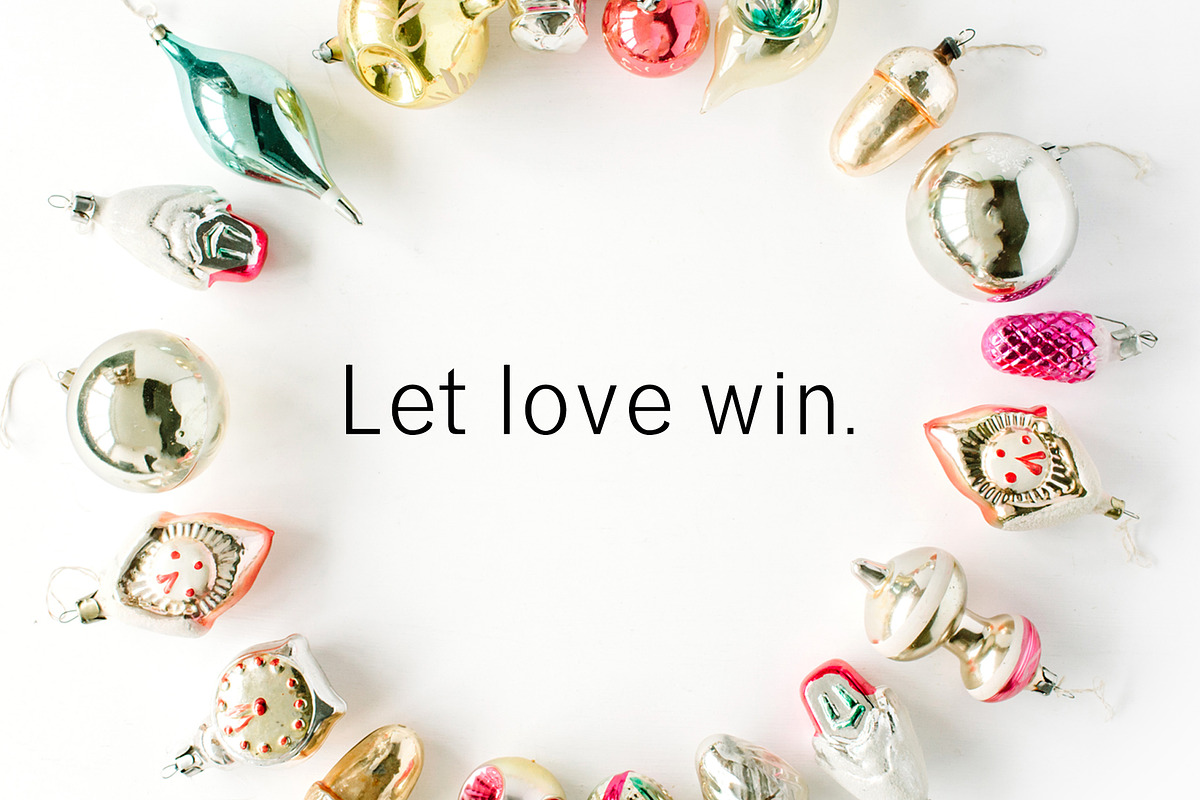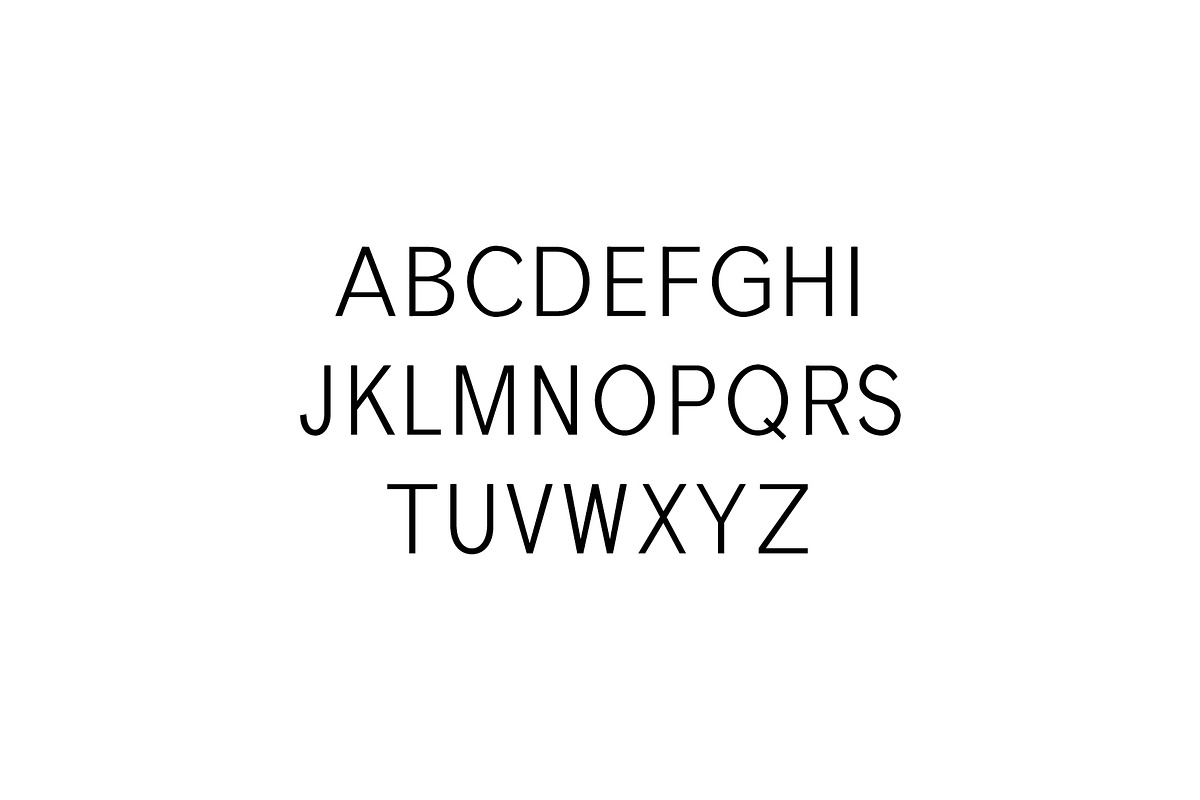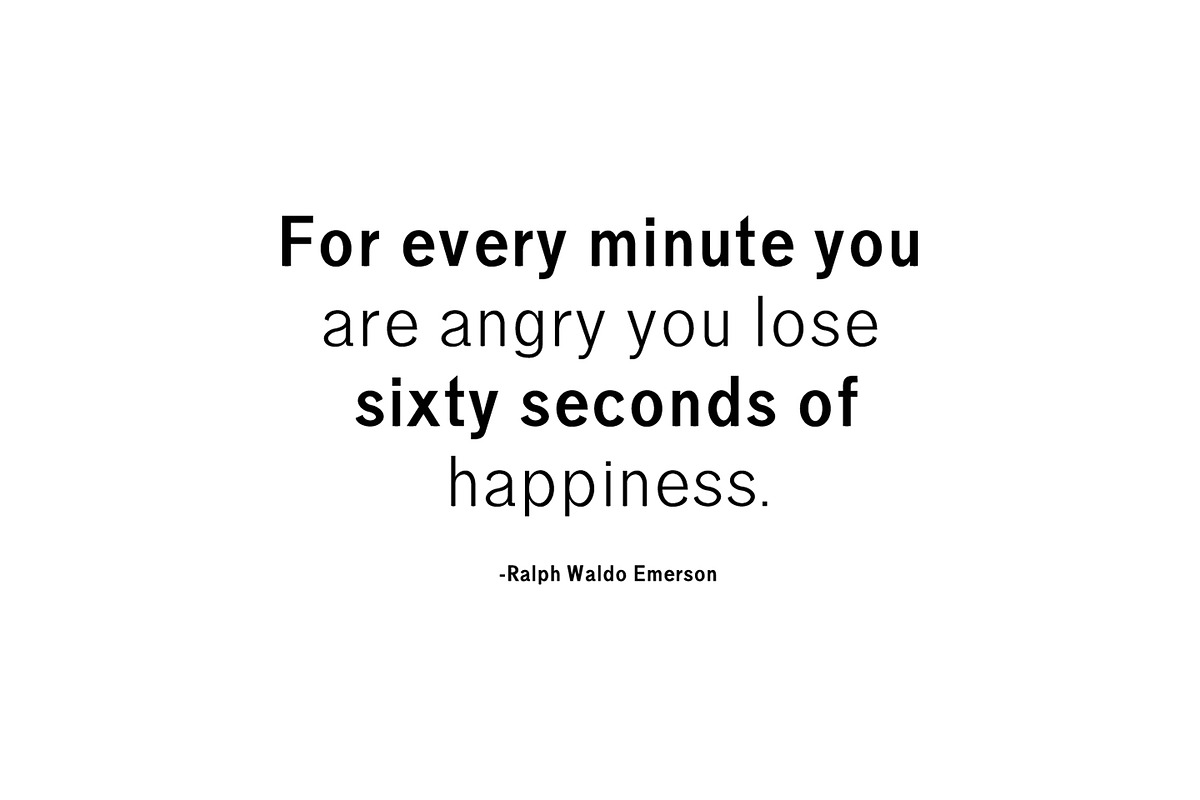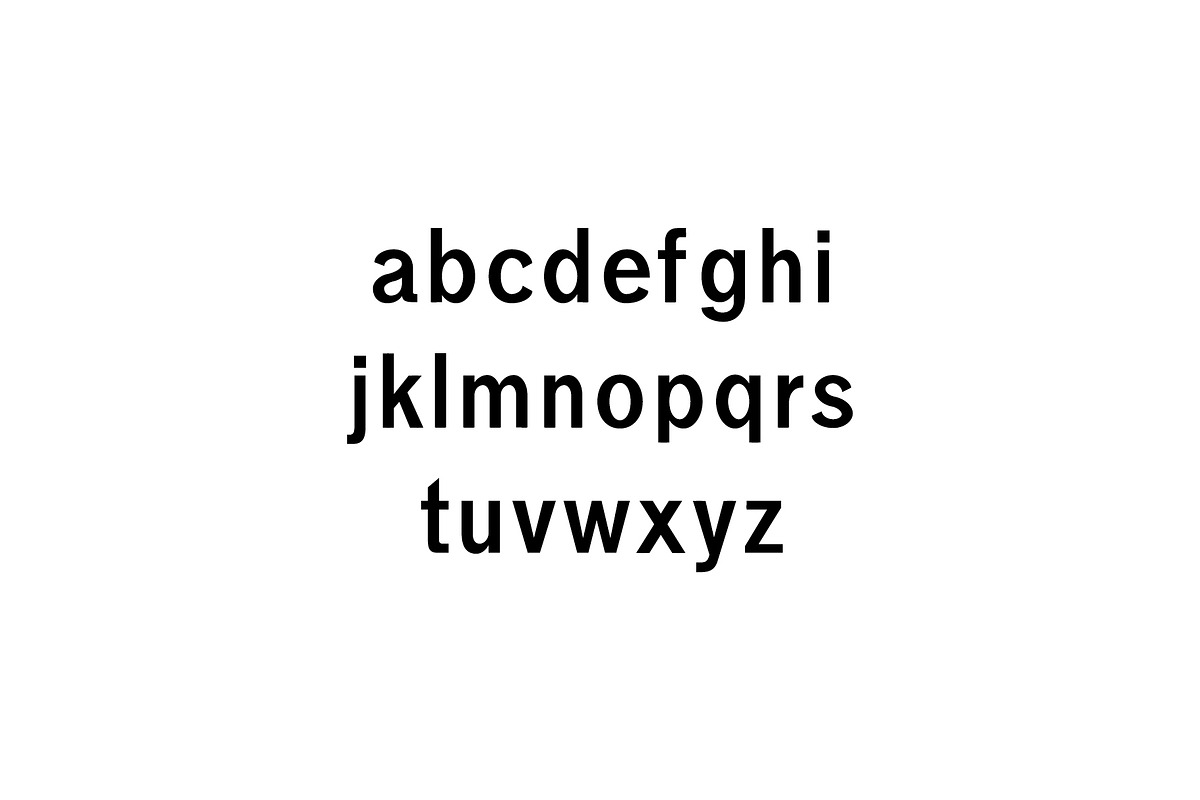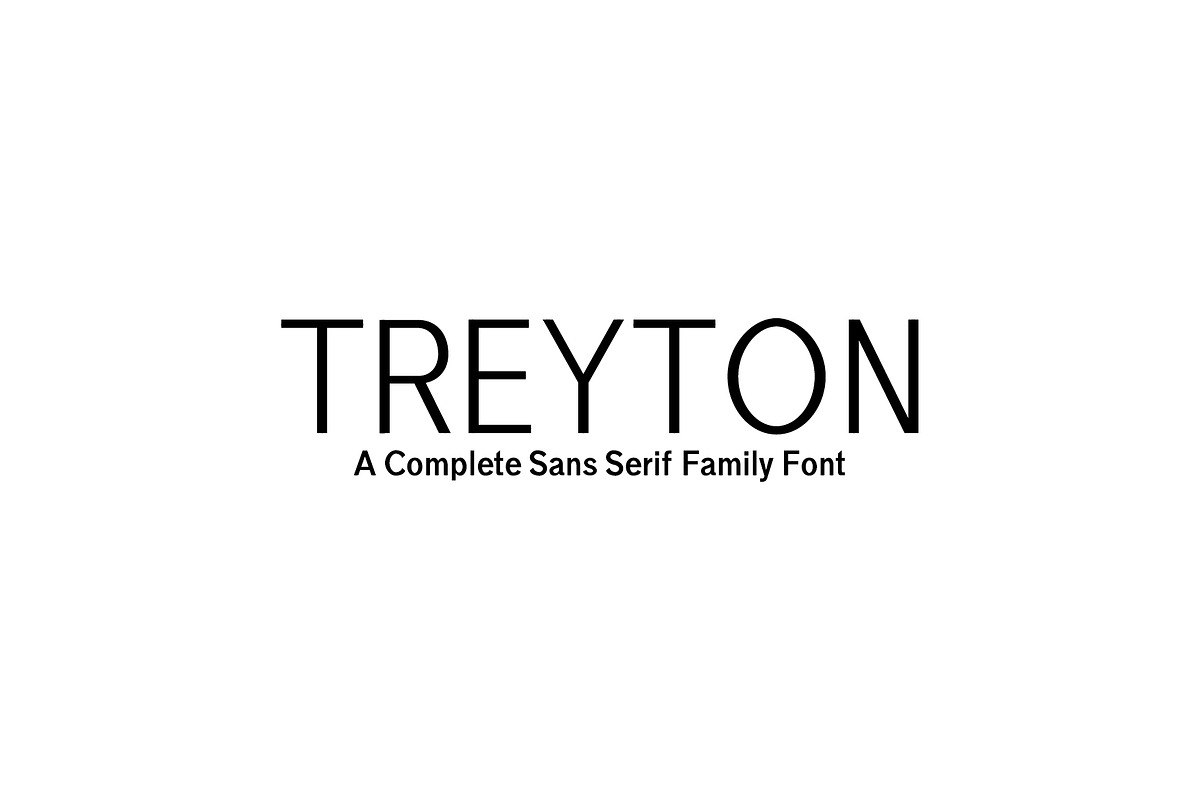
Treyton Sans Serif 7 Font Family
Treyton Sans Serif Font Family is a set of 7 weights font family. It is good for making creative templates and stationary. Treyton typeface suits best for minimal / decoration, logos, headlines, banners and templates etc.
It looks gorgeous in all caps with a wide-set spacing if you want to try a classy look, or beautiful on its own in capital and lowercase letters for something completely timeless.
Regular, Light, Thin, Medium, and Bold and Italics Weights
Treyton Font Features:
Treyton Sans Serif 7 Font Family by Creativetacos fits naturally into Branding, posters, packaging, typography.